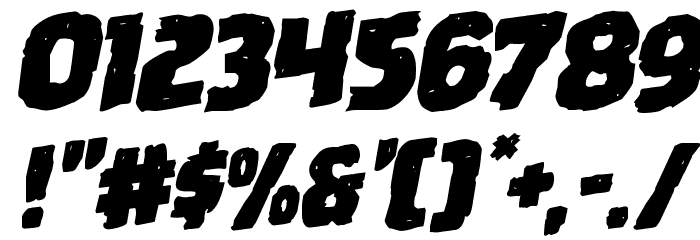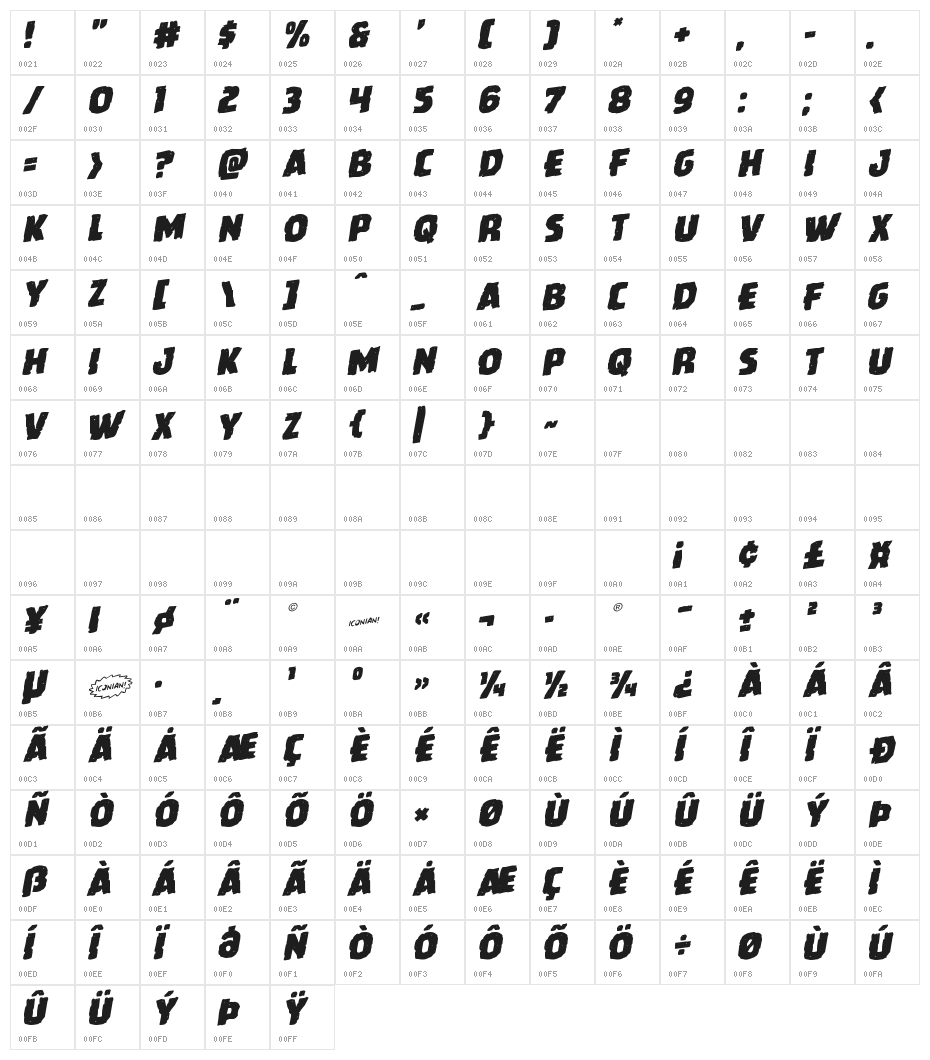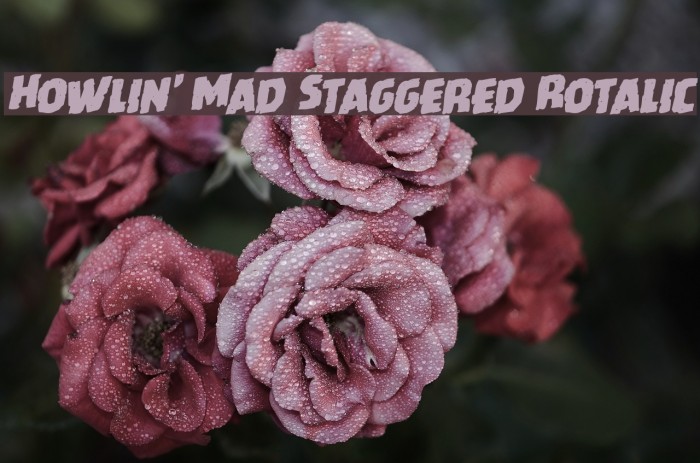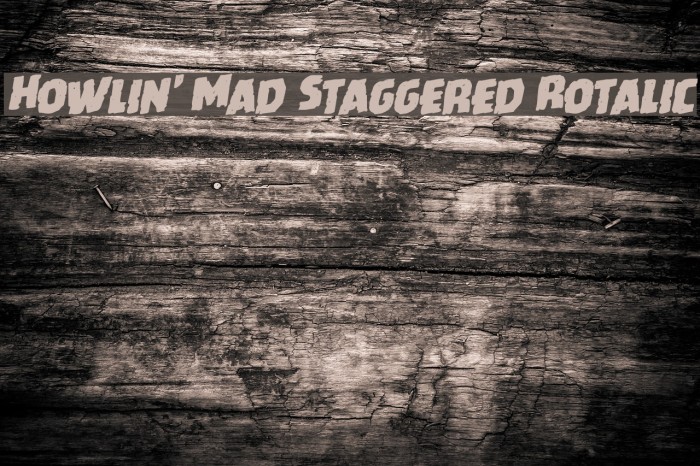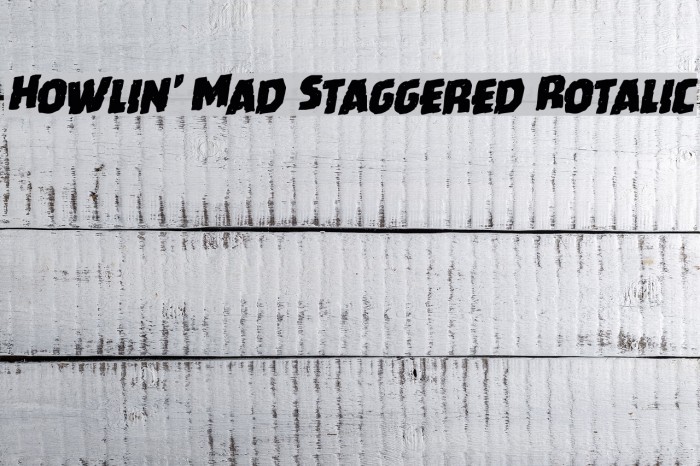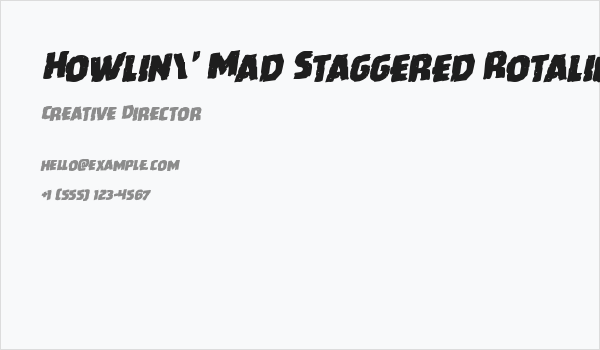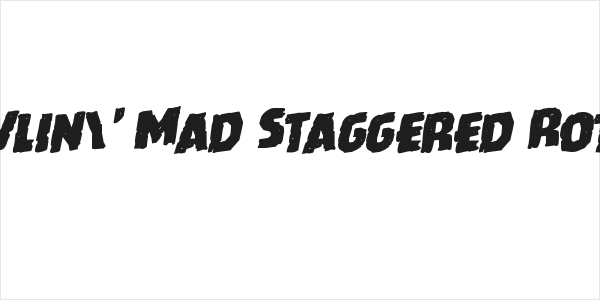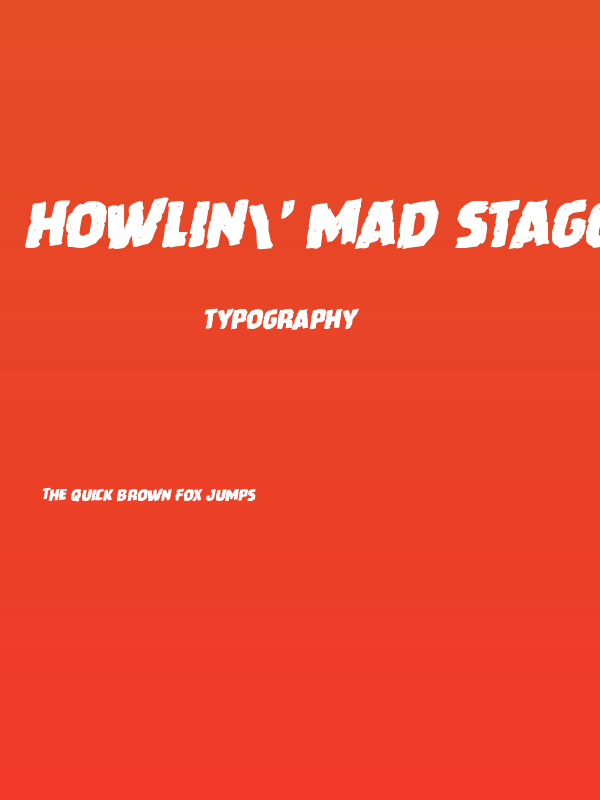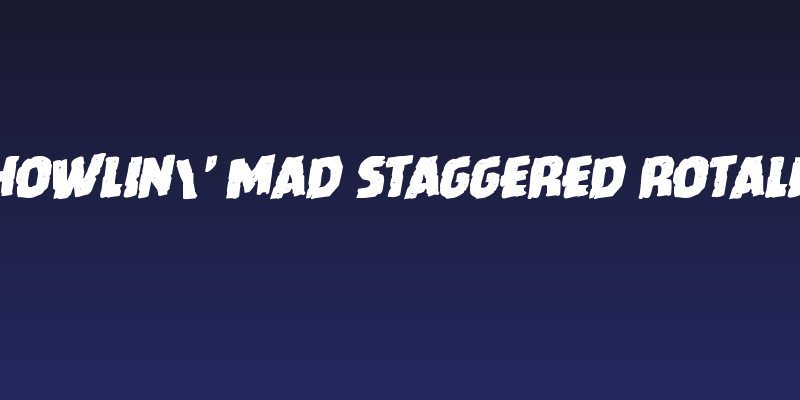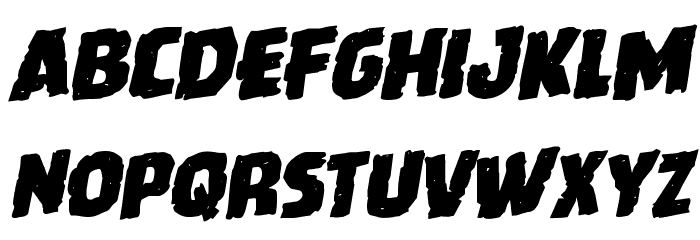
Howlin' Mad Staggered Rotalic Font
Howlin' Mad Staggered Rotalic Description
This font features a bold and dynamic style with a staggered, italicized appearance. The characters are heavily weighted, giving them a strong presence, while the jagged edges and uneven strokes add a sense of movement and energy. The uppercase and lowercase letters maintain a consistent style, with exaggerated angles and a slightly distorted look that enhances the font's edgy and rebellious character. The numbers and special characters follow the same design principles, ensuring a cohesive look across all elements. This font is ideal for projects that require a bold statement or a touch of chaos.
| Overall Style | Modern, Edgy |
| Use Case | Headlines, Posters, Logos |
| Proposed Projects | Perfect for music album covers, posters, graffiti art, and any design needing a bold, rebellious touch. |